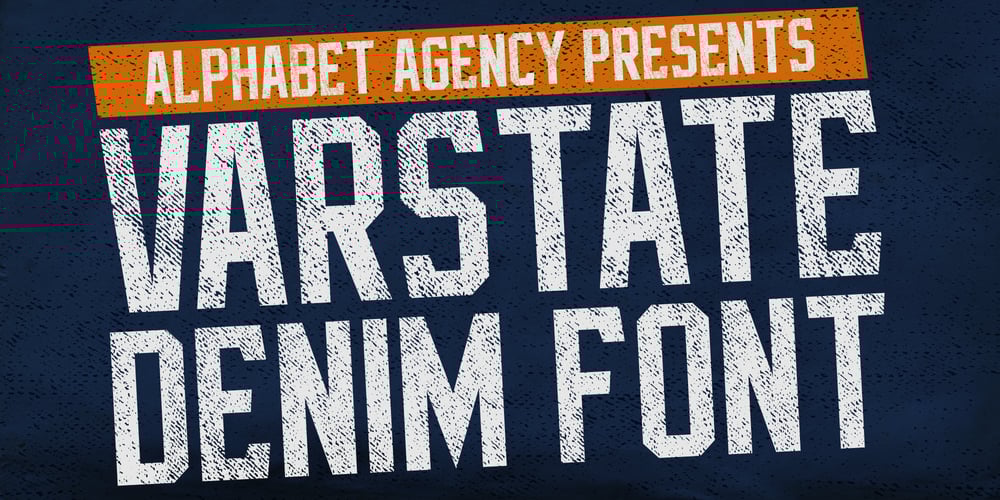
Varstate Denim
Varstate Denim font
Varstate Denim Font Family was designed by Swinn Jonathan and published by Alphabet Agency. Varstate Denim contains 1 styles and family package options. Varstate Denim font is inspired by the varsity team name lettering often seen on apparel such as Letterman jackets, t-shirts and hoodies. The font has a denim texture pattern incorporated into the characters.The fonts can be used across a variety of themes and works particularly well in menswear/fashion genres.The font includes Latin basic characters which includes uppercase, lowercase, numbers, punctuation and much more.